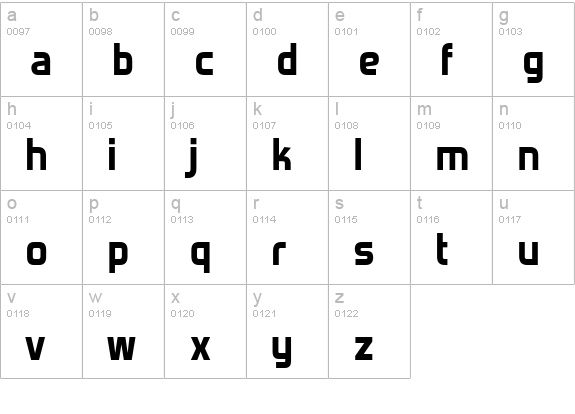
Venacti Bold Font Details
Venacti Bold is a strong, high-contrast variant in the Venacti typeface family \xE2\x80\x94 well suited to headlines, attention-grabbing titles, and strong calls-to-action.
Venacti Bold is a striking and modern typeface that exudes confidence and elegance. With its bold strokes and clean lines, this font is perfect for making a statement in any design project. Whether you're creating a bold headline or designing a sleek logo, Venacti Bold will add a touch of sophistication to your work. The best part? Venacti Bold is available for free download at FontsMarket.com. This means you can easily access this stunning typeface and use it in your projects without any cost. So go ahead, elevate your designs with Venacti Bold and make a lasting impression with its bold and stylish appeal.